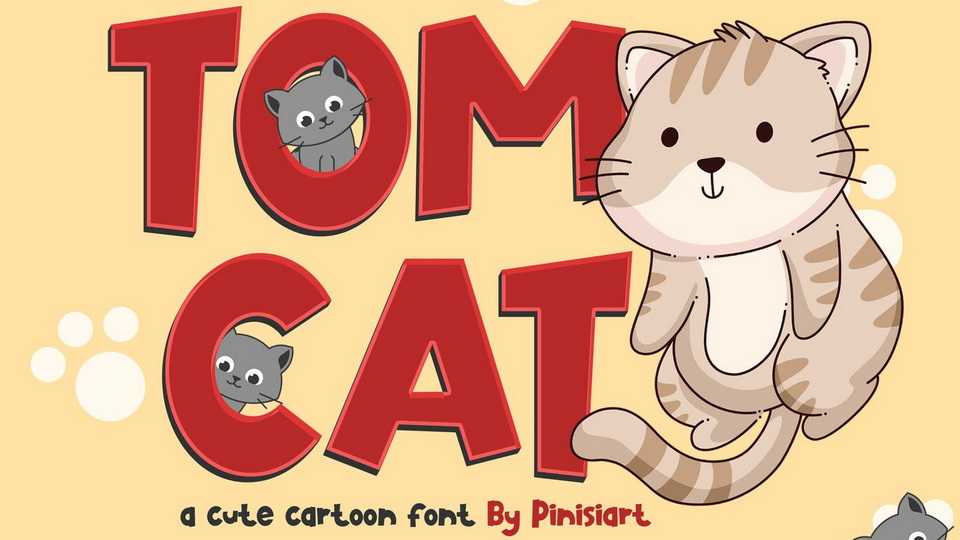
Download Tomcat font, a cute cartoon typeface. Fun and energetic, just like a kitten that plays around without hesitation. jump, run, and all that fun activities.